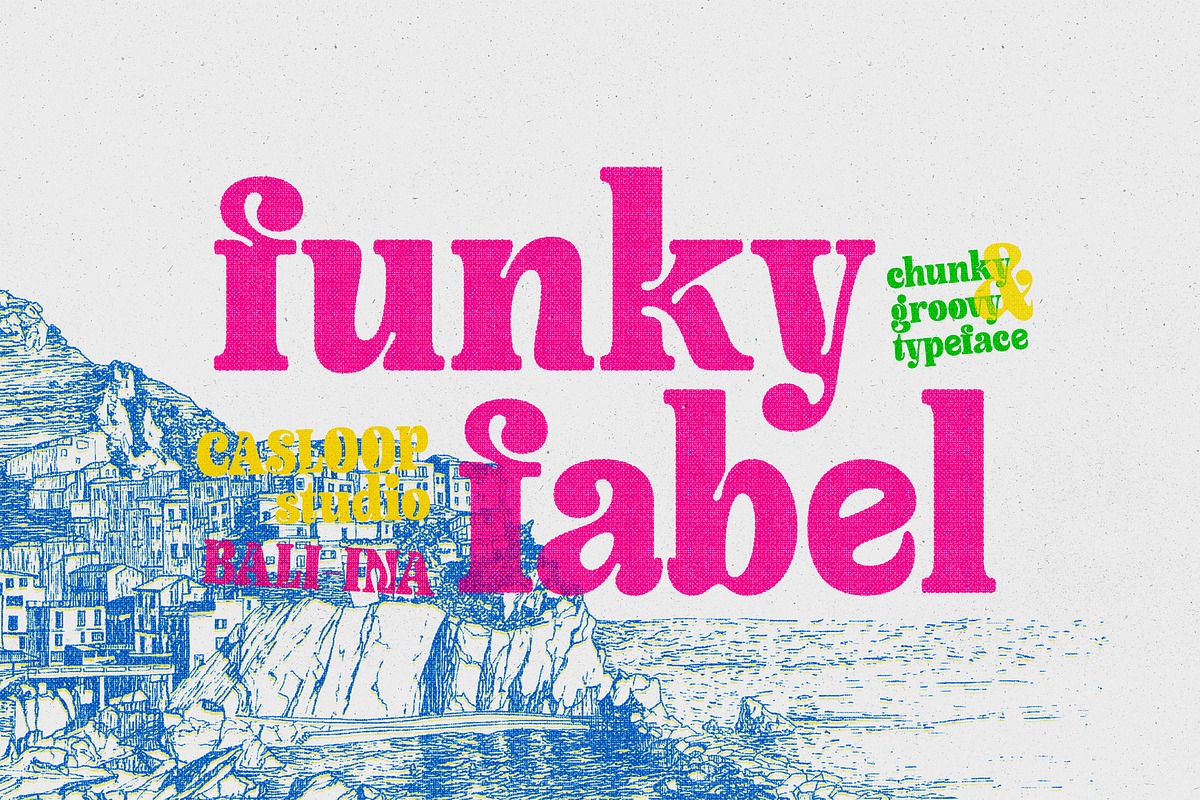
Funky Fable Retro Font
Funky Fable Retro Font is a professionally designed typeface that delivers clarity, structure, and consistent performance across various design applications. Funky Fable a captivating typeface that seamlessly weaves together diverse influences. This harmonious font encapsulates the essence of romance, celebration, and creativity with its eclectic blend of design elements. Perfectly suited for Valentine’s Day or any occasion filled with love and joy, Funky Fable is a unique fusion of whimsical, retro, and kinetic styles.
Drawing inspiration from various sources, such as the artistry of Chinese calligraphy, the vibrancy of cinematic aesthetics, and the deep cultural roots of Brittany, “Funky Fable” becomes a visual tapestry that tells a story of love and connection. The acid-inspired colors and bold strokes give the font a vibrant energy, symbolizing the enthusiasm of celebration.
Infused with a touch of astrological mystique, the characters in “Funky Fable” seem to dance across the canvas, creating a cosmic harmony that echoes the patterns of the stars. The cursive elements gracefully intertwine, mimicking the elegant flow of constellations in the night sky.
This premium font goes beyond mere letters; it’s a visual buster that breaks free from conventional design boundaries. The anamorphic, dada-inspired shapes add a modern twist, inviting a sense of freeform expressiveness that sparks creativity. The fusion of Ashford’s sophistication and the font’s playful quirks results in a truly dynamic design.